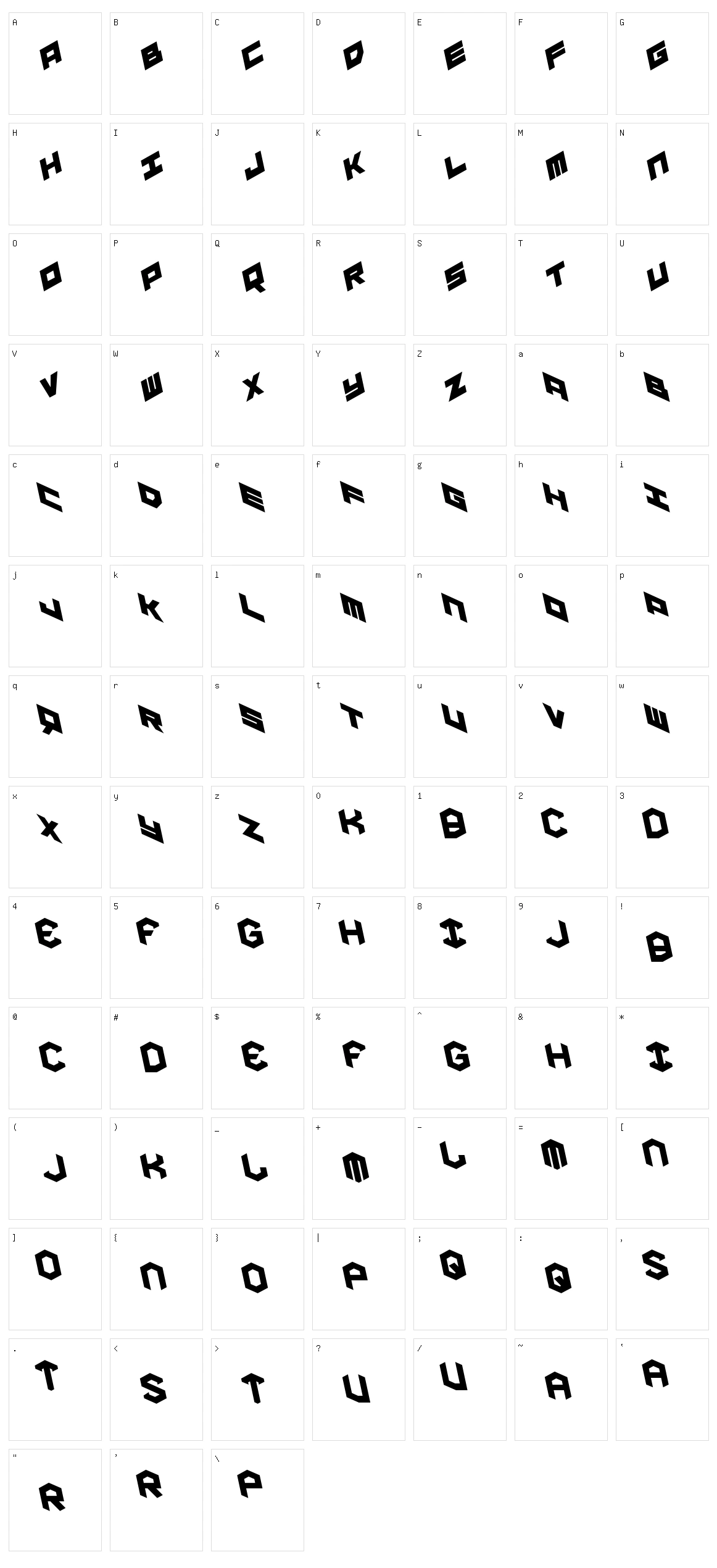
The free font Yay Usa is carefully designed by Iconian Fonts, showcasing a thoughtful balance of creativity and usability and falls under the Square font style. When you download the ZIP file, it contains only 59.72 KB of font files, making it lightweight and quick to download. Please review the license details below to understand permitted usage and distribution rights. If license information is not available, we recommend using this font for personal projects only or contacting the author directly for commercial usage permissions.
This font comes with the following 7 versions: Regular, Italic, Leftalic, Condensed, Expanded, Outline and 3D Condensed.